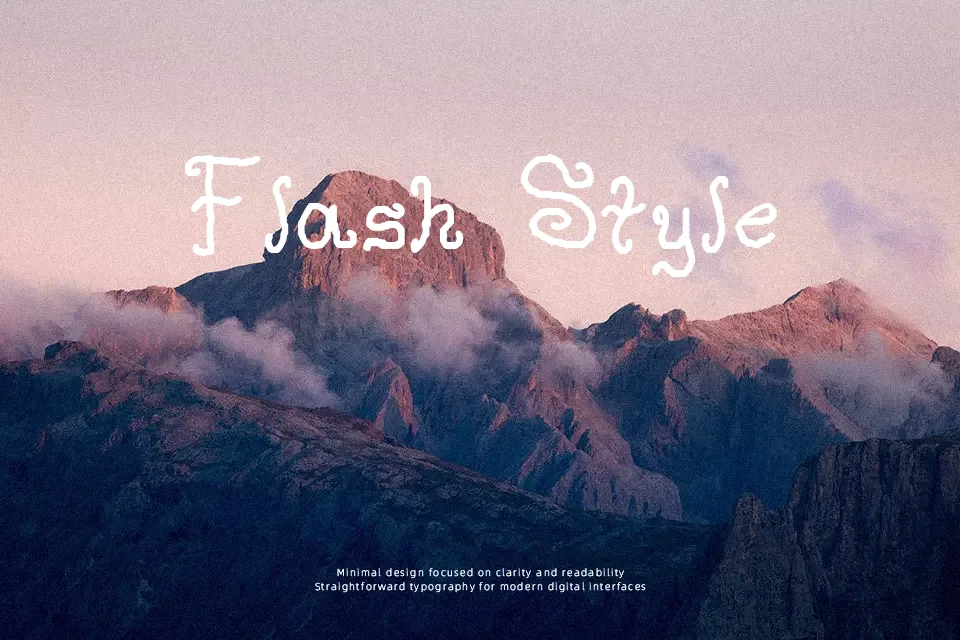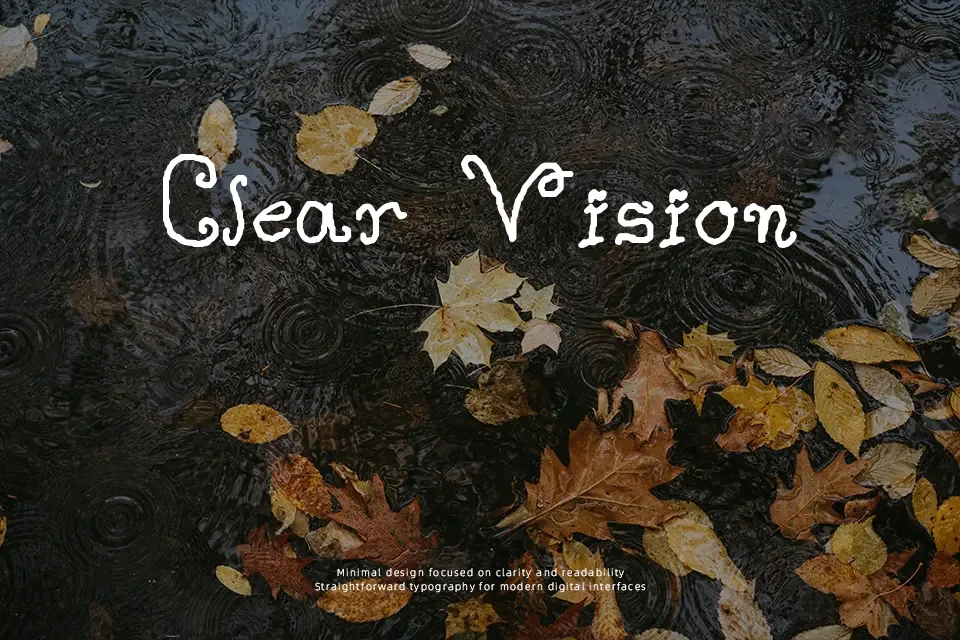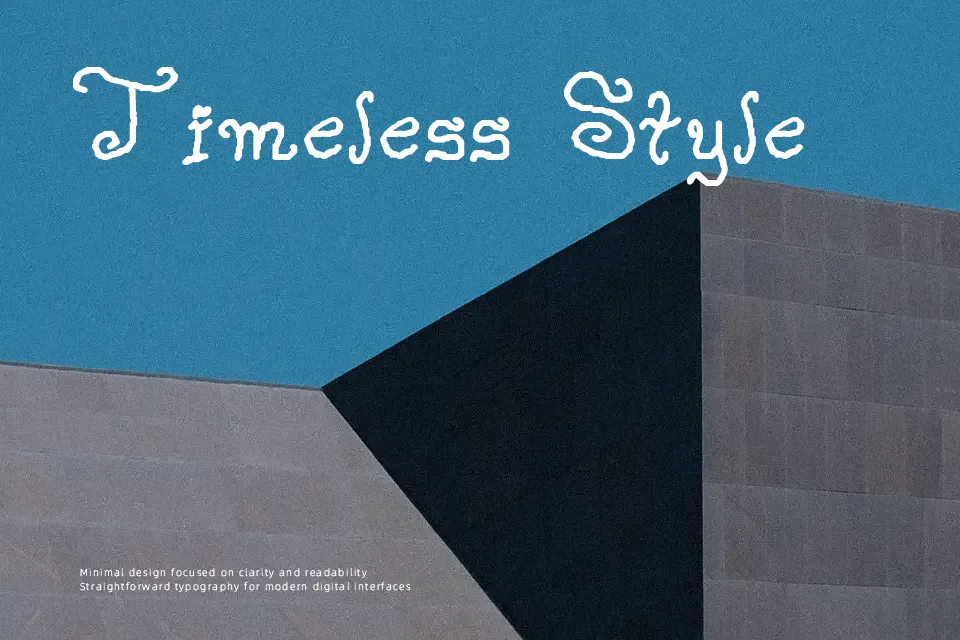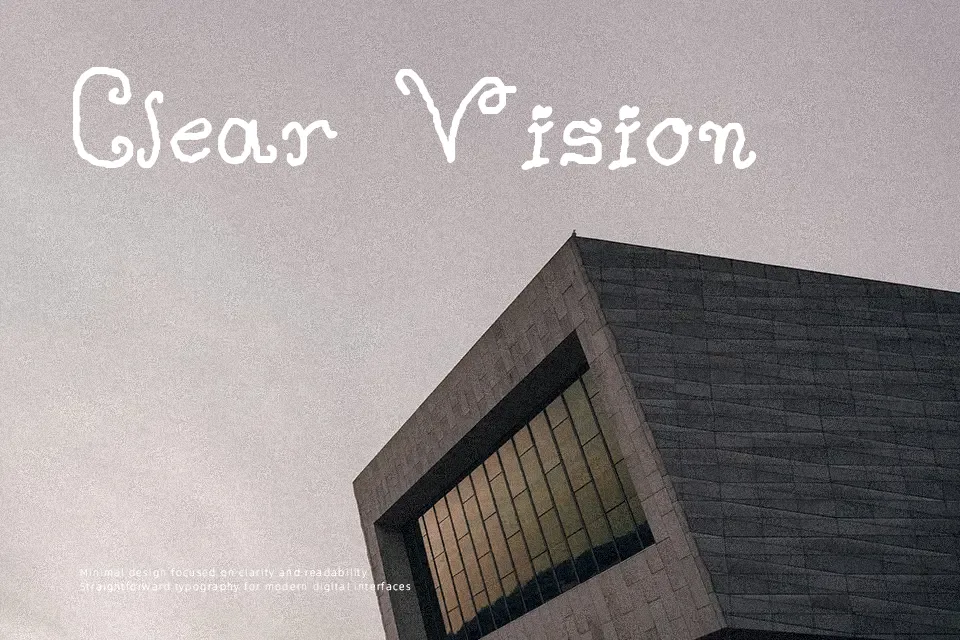
Single Gyrl Font
Single Gyrl Font features expressive character geometry characterized by prominent spiral swashes, curved terminal flourishes, and irregular stroke weights. The design maintains relatively wide letter spacing to accommodate decorative loops on both uppercase capitals and lowercase stems. Proportions vary noticeably between individual glyphs, giving words an animated, handcrafted rhythm rather than rigid mechanical alignment. While these distinctive swirling traits deliver immediate personality in short headline compositions, children’s book titles, and event flyers, the intricate line flourishes significantly reduce legibility when set in smaller body copy. Dense paragraph layouts easily become cluttered and difficult to parse under continuous reading conditions.
Best For: greeting card headlines,boutique packaging labels,party invitation banners,children book titles
Not Ideal For: continuous body text,technical documentation,mobile app navigation,dense editorial articles
Perfect for headline, invitation, and packaging, with a creative and decorative style.